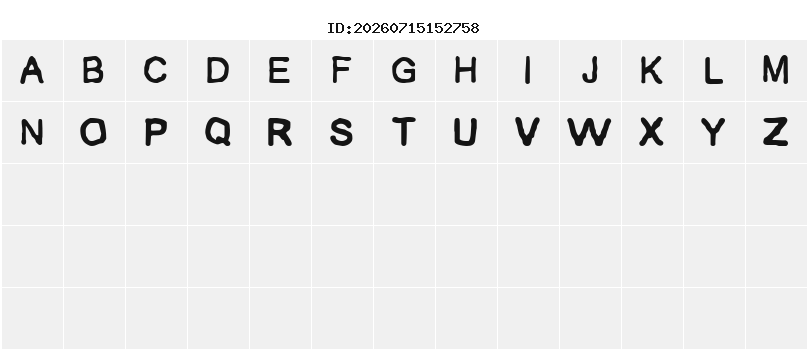
• Font Name: airbrush
• Designer: Maayan Cohen
• Description: This is M.C.'s (me) first font ever created!!! It's based on Arial and I added it in AirBrush.
About airbrush.ttf
airbrush.ttf is a modern, elegant sans-serif font designed for ultimate readability and visual harmony. Perfect for branding, headlines, web design, and print materials.